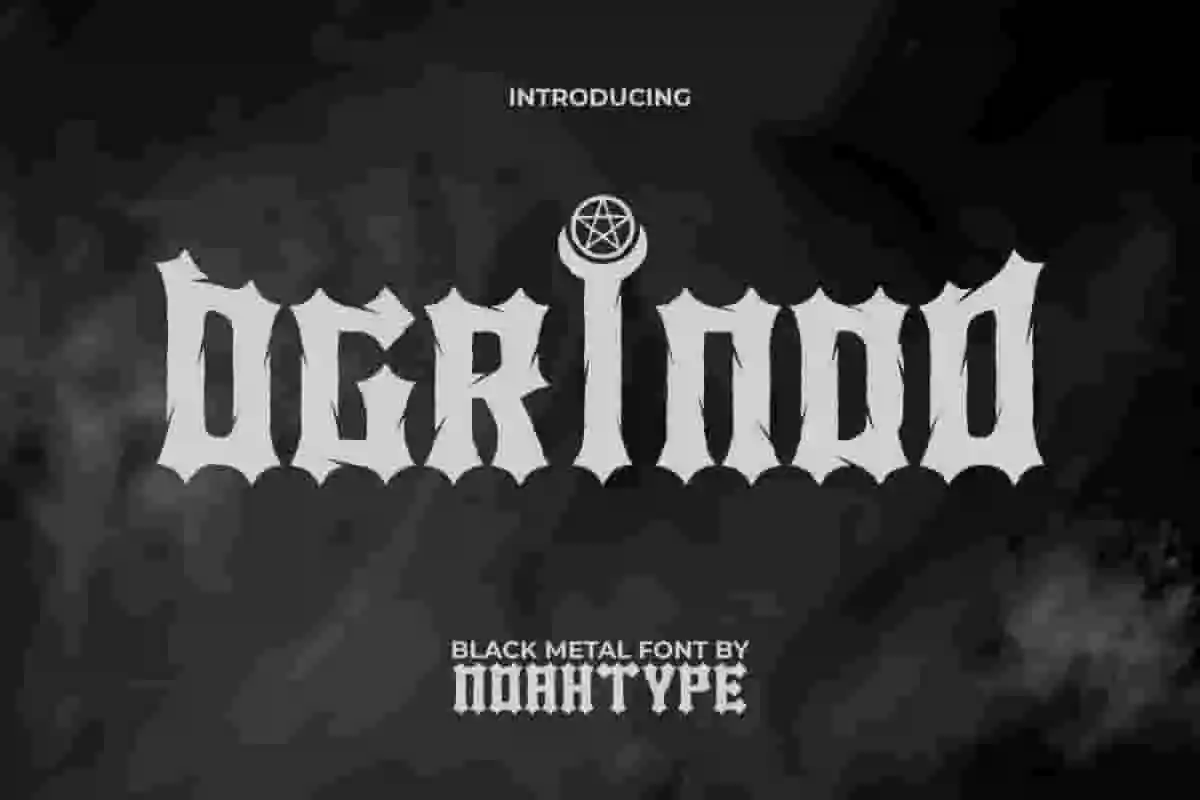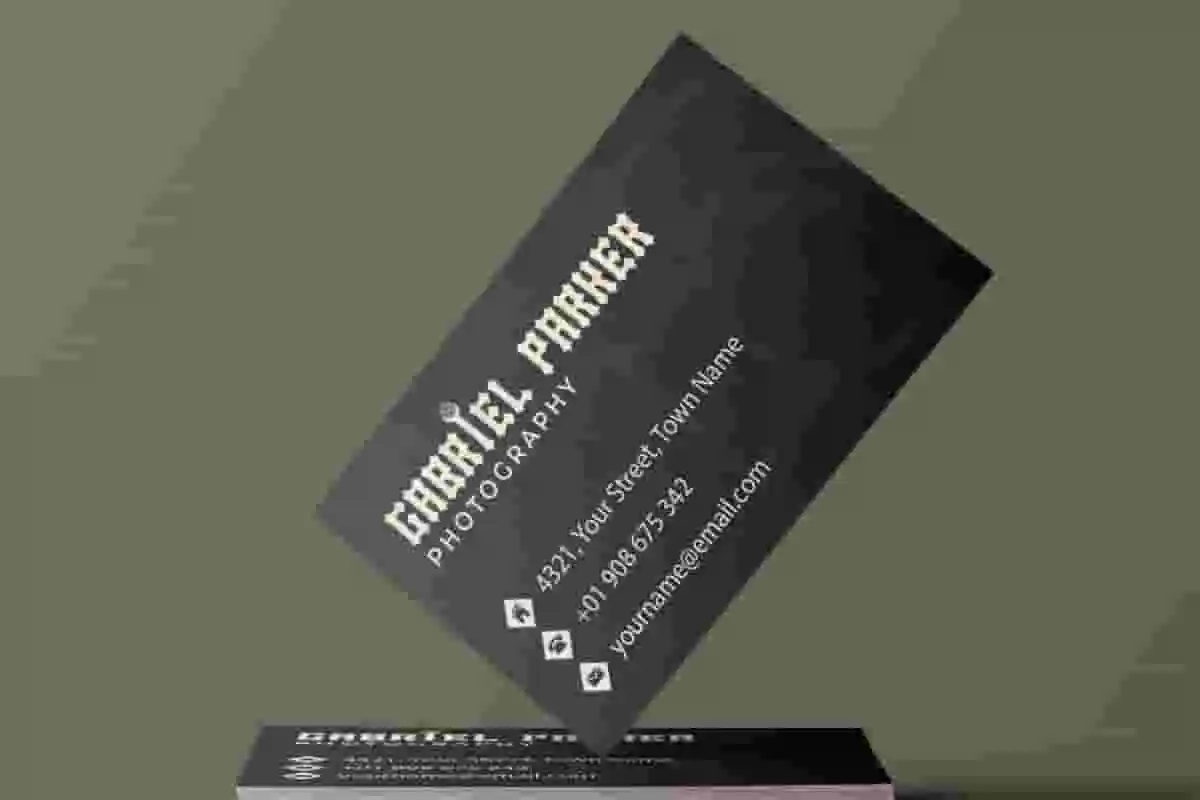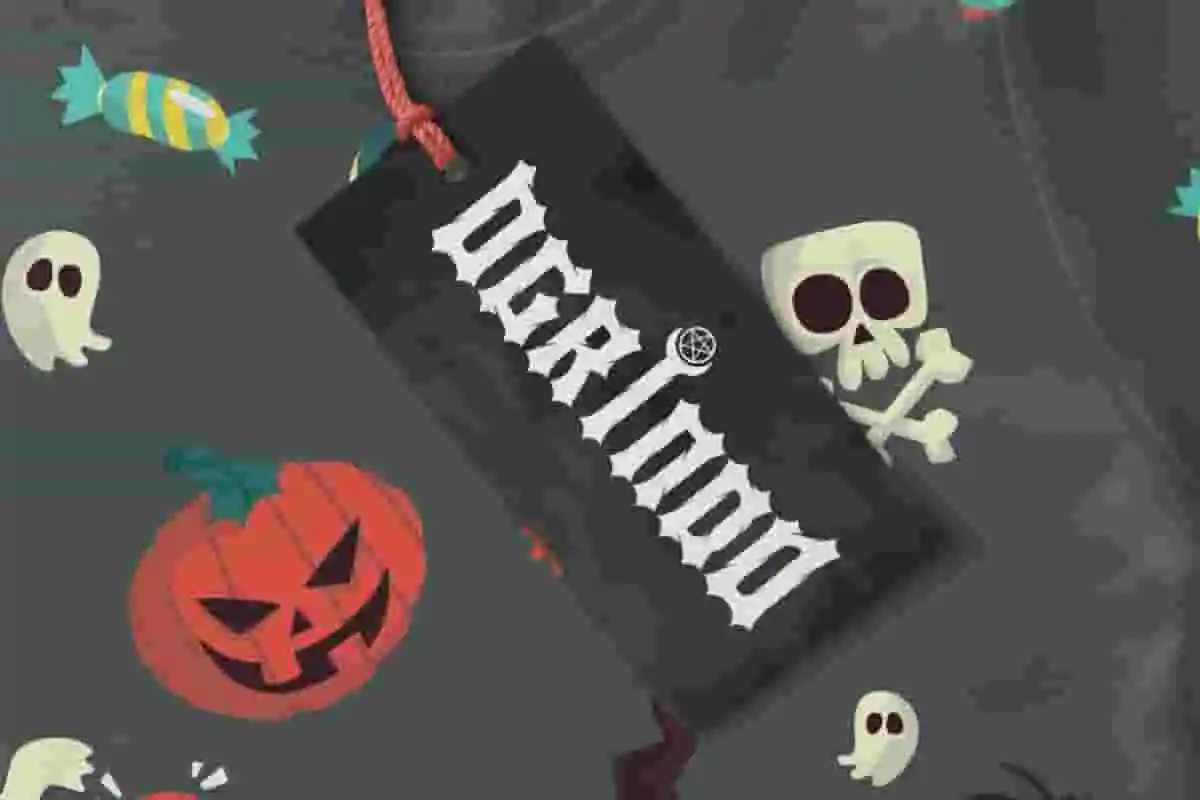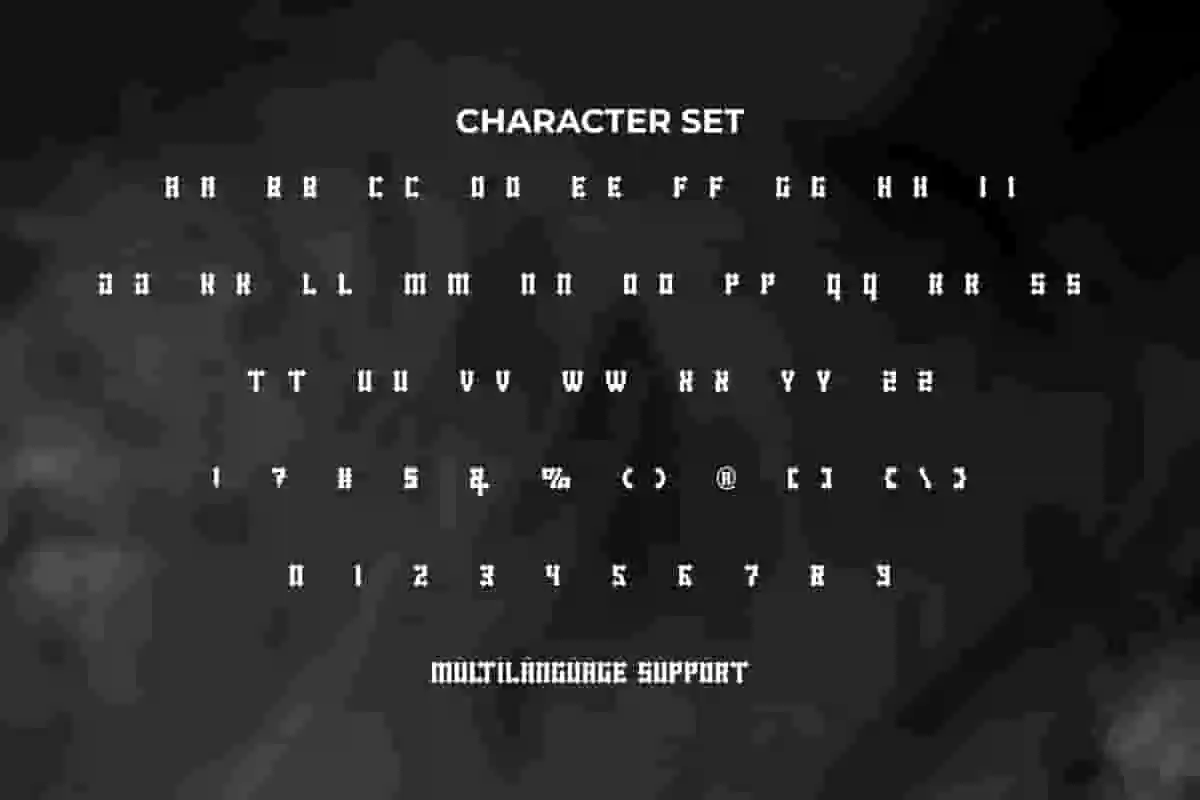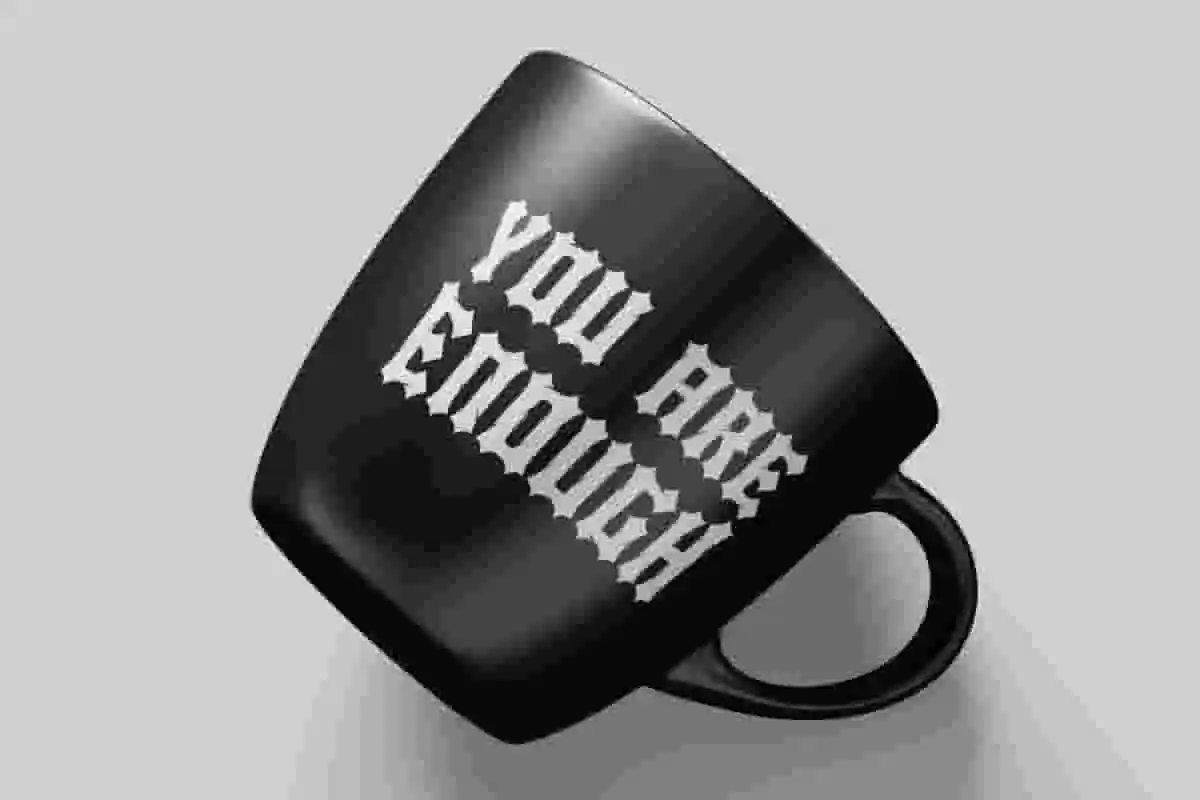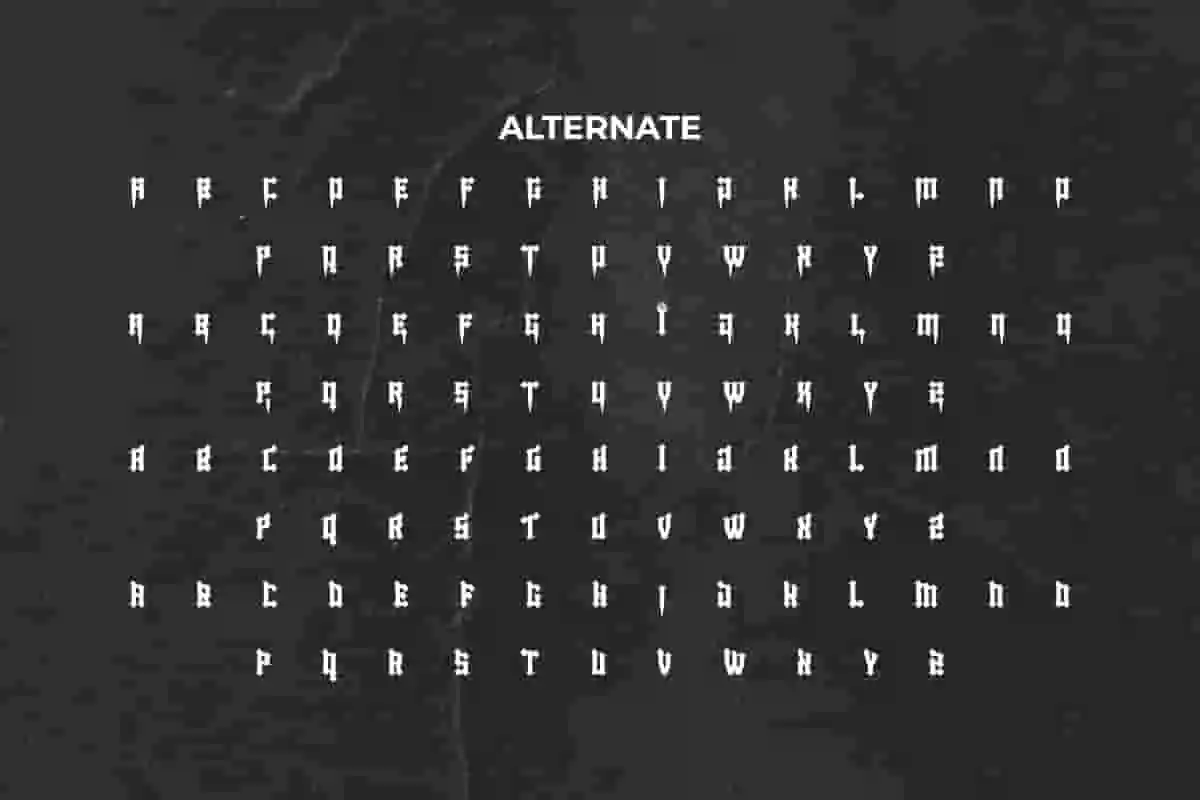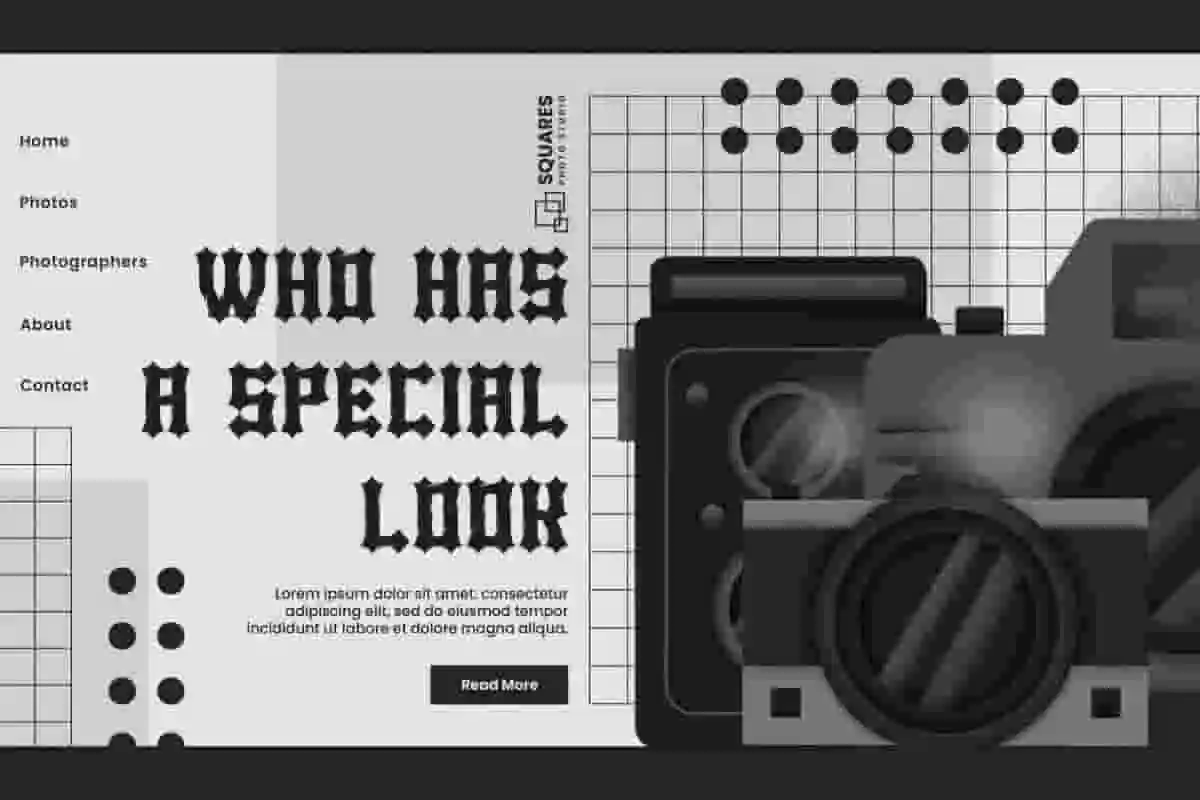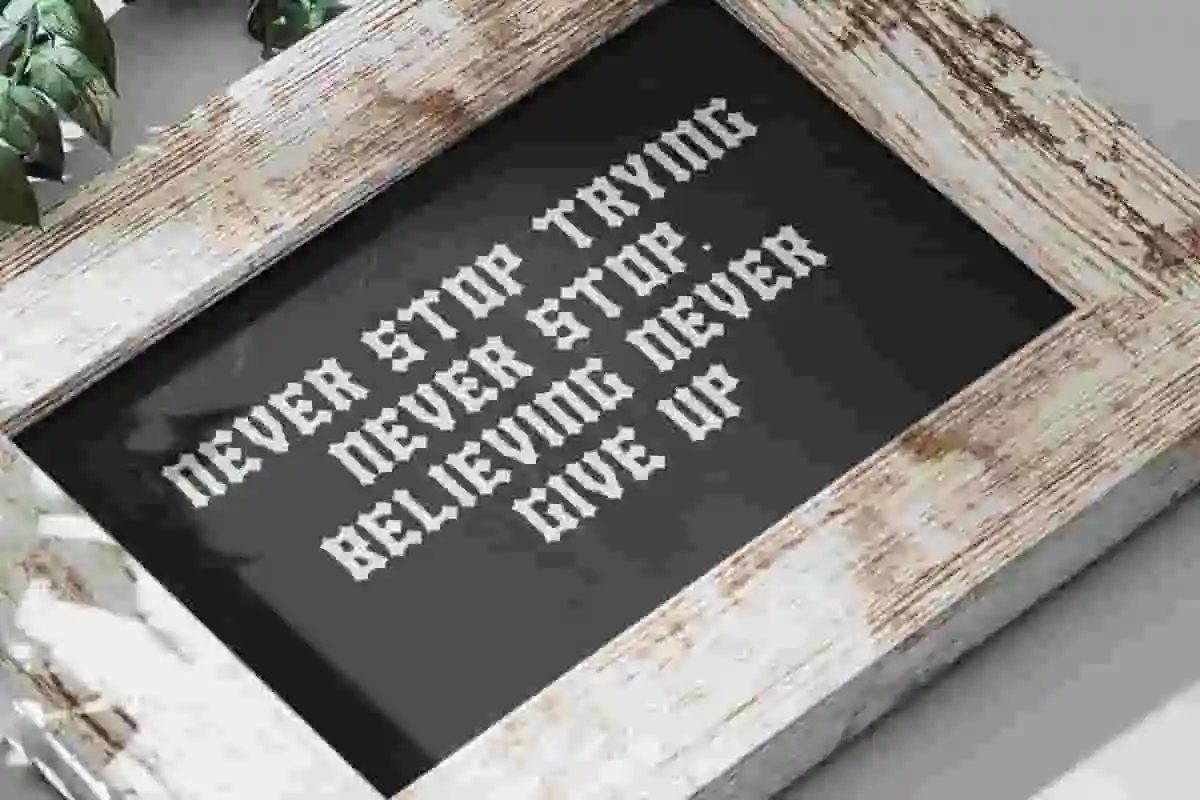
Ogrindo Font is a cool creepy black metal font by NoahType. The shape of this font is made to resemble bones with a concept of a touch of creepy darkness. It will be perfect for any designs, such as custom design, brand image, poster, label, invitation, cover, marketing material, menu, printing, product packaging, quotes, signage, website, and many more!
Ogrindo Font includes full set of ALL CAPS for Uppercase and Lowercase Basic Characters, Numerals, Punctuation, Symbol, and Alternate character. This cool font will make your design amazing and also a perfect choice for many industries, such as game, movie, music, accessories, advertising, art, café, event or festival, fashion, printing, publishing, etc.